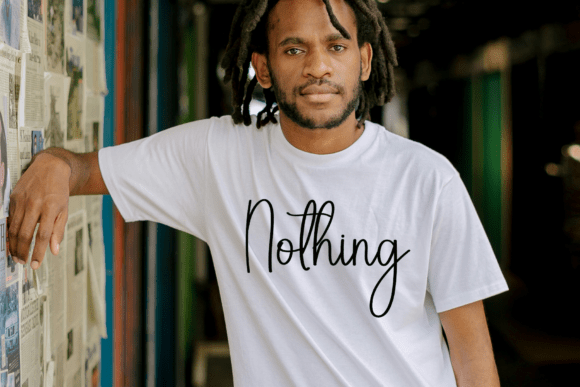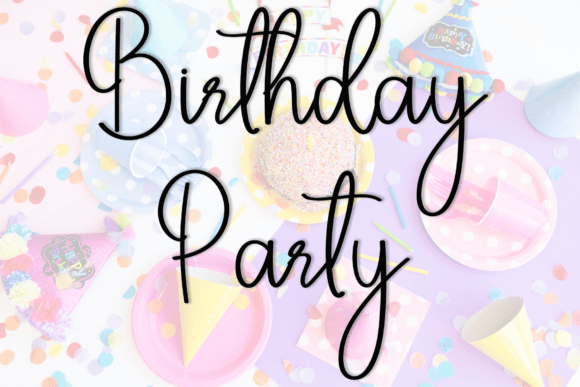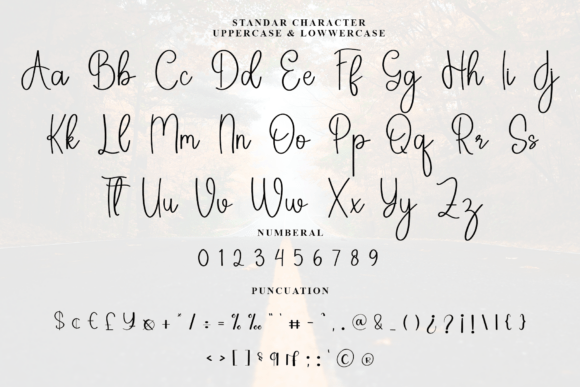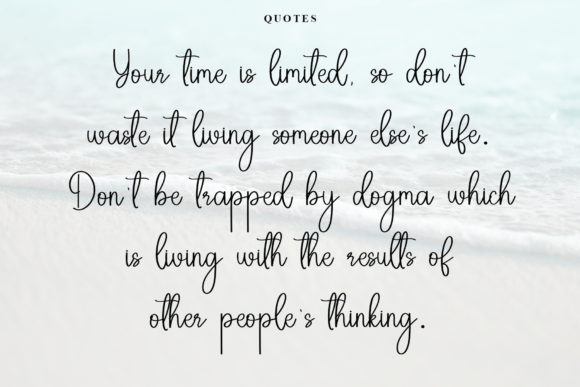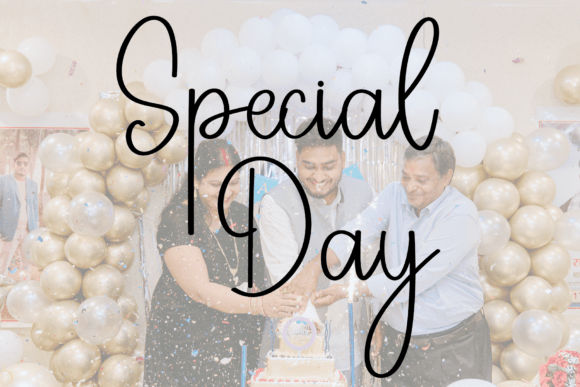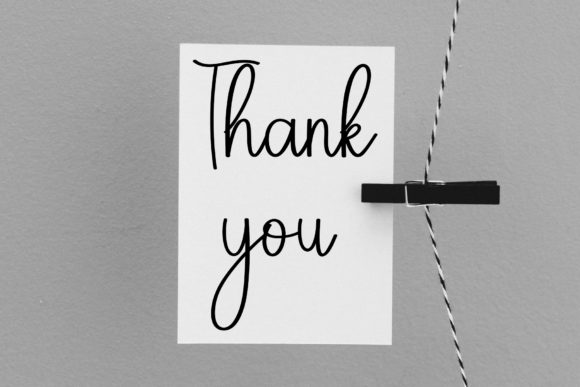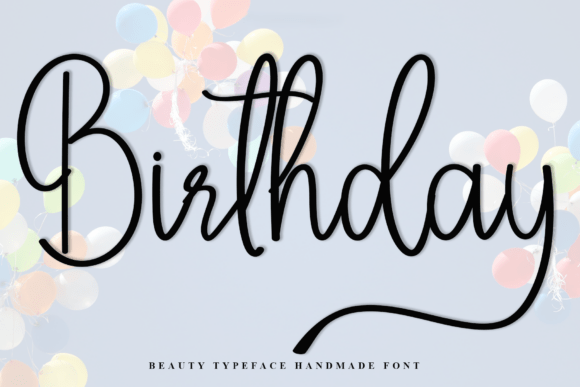
Introducing Birthday Font: The Perfect Addition to Your Celebratory Designs
Are you tired of using the same old fonts for your birthday cards, party invitations, and other joyful occasion designs? Look no further! Birthday Font is here to add a playful and celebratory touch to your creations. This delightful, brush-handwritten font is designed to capture the fun and excitement of birthdays and special events, making it the perfect addition to your design toolkit.
The Characteristics of Birthday Font
So, what makes Birthday Font so special? Here are a few of its key characteristics:
- Playful and Fun: Birthday Font is designed to be lively and energetic, with a carefree vibe that’s perfect for birthdays, parties, and other celebrations.
- Brush-Handwritten Style: The font features a beautiful, hand-brushed style that gives it a personal and warm feel.
- Casual and Informal: Unlike more formal fonts, Birthday Font is casual and relaxed, making it ideal for designs that need to feel friendly and approachable.
- Lively Strokes: The font’s strokes are lively and dynamic, adding a sense of movement and energy to your designs.
Why Use Birthday Font?
So, why should you choose Birthday Font for your designs? Here are just a few reasons:
- Perfect for Celebratory Occasions: Whether you’re designing birthday cards, party invitations, or other celebratory materials, Birthday Font is the perfect choice.
- Adds a Creative Touch: The font’s unique, hand-brushed style adds a creative and artistic touch to your designs, setting them apart from more generic fonts.
- Easy to Read: Despite its playful style, Birthday Font is easy to read, making it perfect for designs that need to be both fun and functional.
- Versatile: Birthday Font can be used for a wide range of designs, from digital projects to print materials.
How to Use Birthday Font in Your Designs
Using Birthday Font in your designs is easy! Here are a few tips to get you started:
- Pair it with Other Fonts: Birthday Font pairs well with other playful fonts, as well as more formal fonts, making it easy to create interesting and dynamic designs.
- Experiment with Colors: The font looks great in a wide range of colors, from bright and bold to pastel and soft.
- Use it for Headings and Titles: Birthday Font is perfect for headings and titles, where its playful style can really shine.
- Add it to Your Design Toolkit: Whether you’re a designer, crafter, or DIY enthusiast, Birthday Font is a great addition to your design toolkit.
In conclusion, Birthday Font is a fun and playful font that’s perfect for any celebratory occasion. With its lively strokes, casual style, and creative vibe, it’s the ideal choice for designers and crafters looking to add a personal touch to their designs. So why not give it a try? Download Birthday Font today and start creating your own unique and memorable designs!